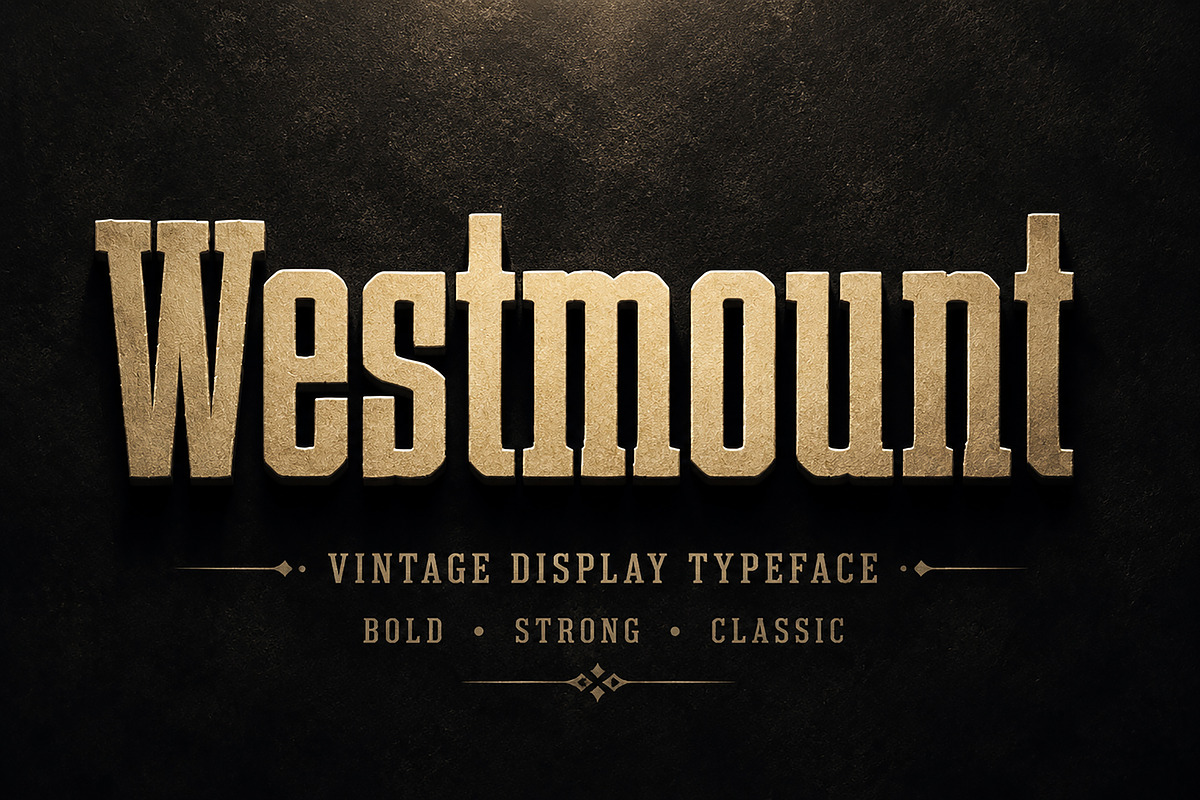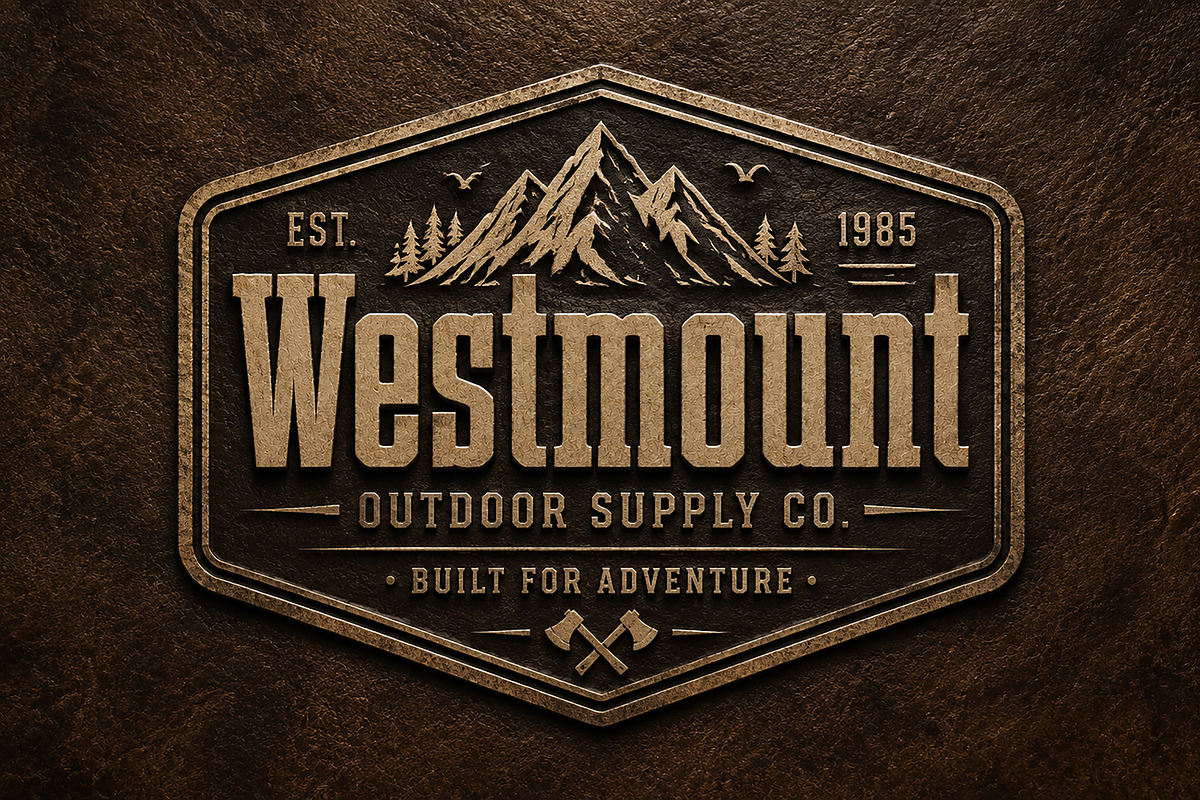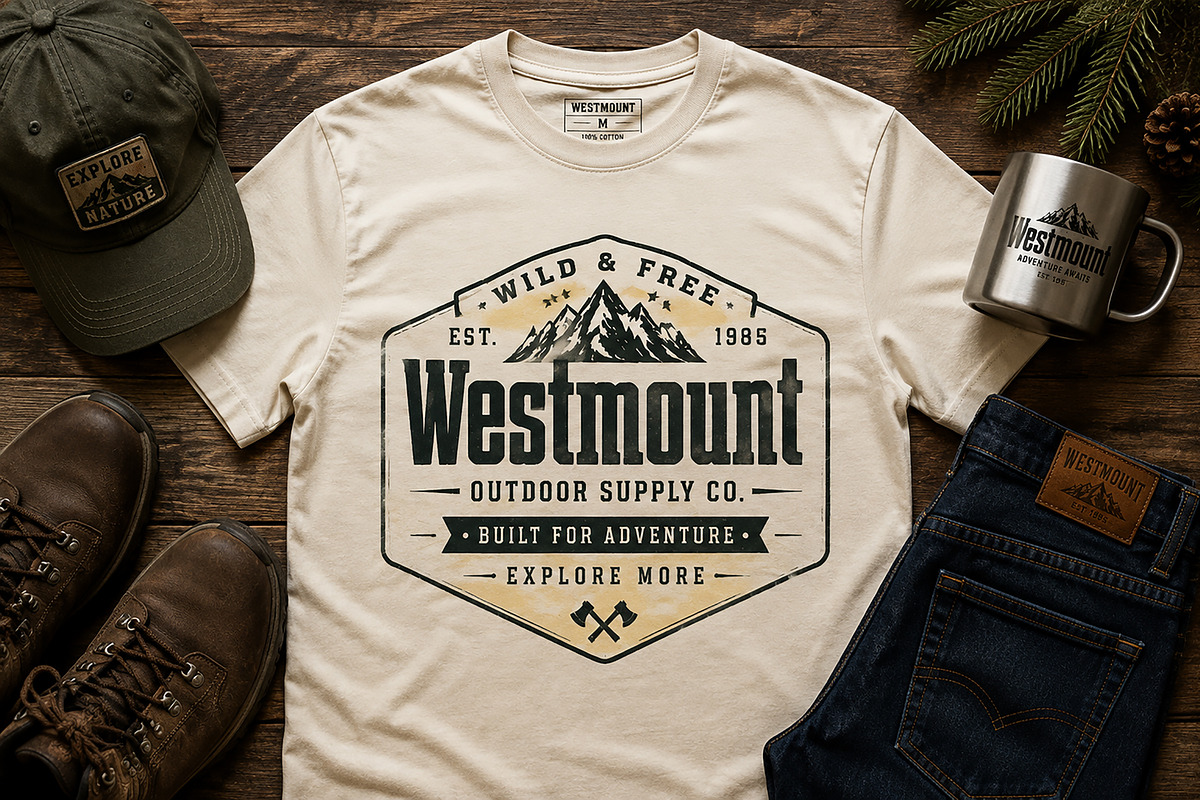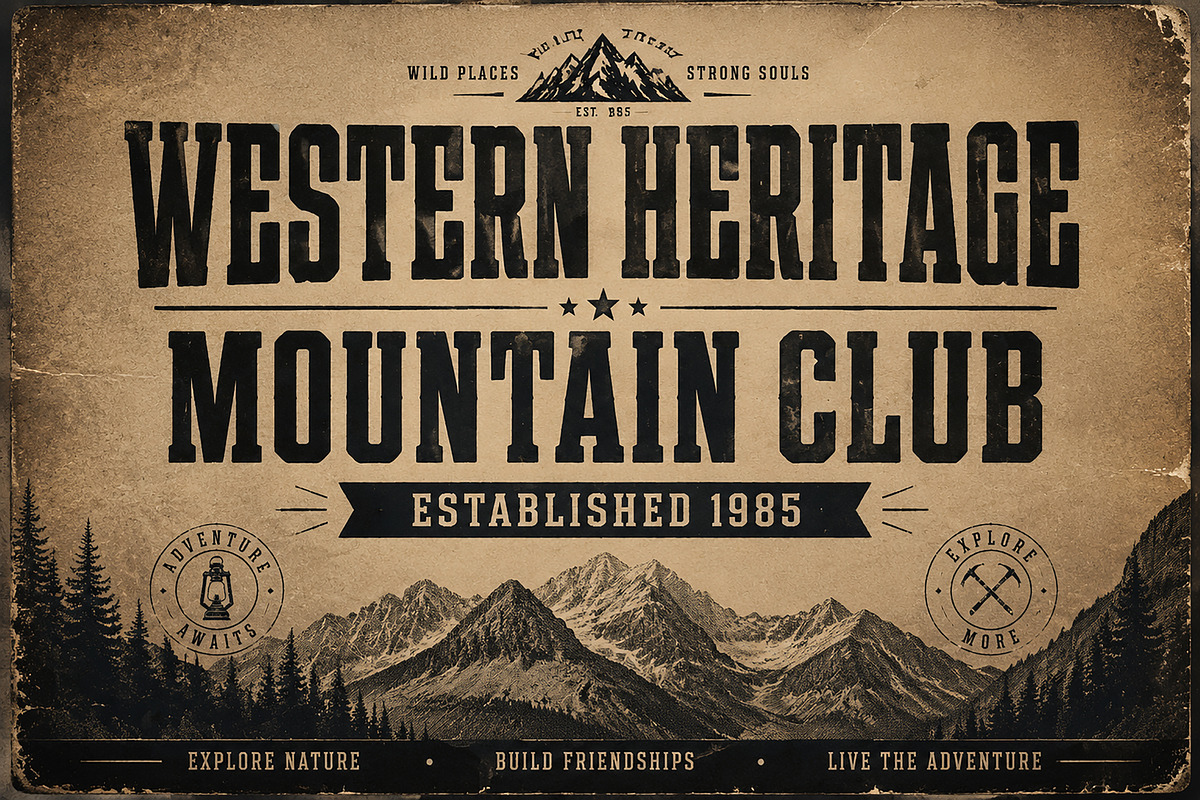
Westmount
Westmount – Vintage Display Typeface
Westmount is a bold vintage display typeface inspired by classic western aesthetics, outdoor branding, heritage logos, and retro adventure designs. With its strong condensed structure and powerful character style, Westmount brings a timeless vintage feel to any creative project.
Designed for designers who need a strong headline font, Westmount works perfectly for logos, badges, posters, apparel designs, labels, packaging, sports branding, outdoor brands, and merchandise projects.
Its bold and masculine appearance makes it ideal for creating eye-catching designs that need a classic, rugged, and premium look.
Vintage Logos & Branding
Outdoor & Adventure Brands
Clothing & Apparel Design
T-Shirt Graphics
Sports Team Branding
Posters & Flyers
Badges & Emblems
Labels & Packaging
Signage
✔ Bold Vintage Display Style
✔ Strong Condensed Letterform
✔ Classic Western Inspired Design
✔ Perfect for Large Headlines
✔ Professional Branding Typeface
✔ High Impact Typography Style
Create powerful vintage designs with Westmount and give your projects a bold, classic, and unforgettable identity.